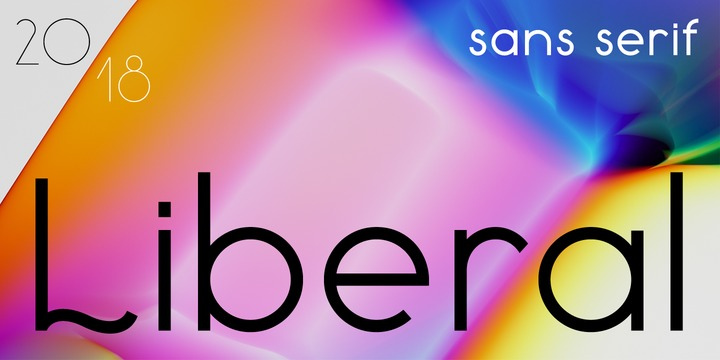
Liberal Font
Liberal Font is perfect for progressive political campaigns, social justice organizations, advocacy group communications, democratic institutions, open-minded educational platforms, and forward-thinking policy research centers. This enlightened typeface excels in civil rights materials, progressive media publications, social reform initiatives, and any application where inclusive values and progressive ideals create meaningful connections with socially conscious communities.
What makes Liberal Font so exciting is its remarkable ability to convey openness and progressive thinking through generously spaced, welcoming letterforms that embody principles of inclusion and social advancement. The font features open counters, democratic proportions, and forward-leaning character shapes that reflect the spirit of progress and social evolution. Its inclusive presence makes it perfect for organizations championing equality, justice, and positive social change.
Liberal Font comes in a progressive family including Light, Regular, Medium, Bold, and Reform weights. Each style features complete uppercase and lowercase character sets, inclusive symbols, progressive numerals, and democratic punctuation marks. The font family also includes diversity alternates, equality ligatures, and reform variations that allow designers to create authentic progressive communications with social consciousness and professional advocacy appeal.
This enlightening typeface transforms political communications into powerful expressions of democratic values and social progress. Liberal Font Free Download provides progressive organizations and advocacy groups with essential typography that champions inclusive ideals while serving contemporary social movement needs. Whether you're developing campaigns for social justice, creating materials for progressive causes, or designing communications for democratic institutions, this font delivers authentic progressive resonance with inclusive appeal.
The font's progressive character makes it particularly effective for advocacy organizations, progressive political groups, social justice initiatives, and inclusive educational institutions. Its open readability ensures that Liberal Font communicates clearly while maintaining its distinctive inclusive personality. The font's ability to inspire hope and social consciousness makes it an invaluable voice for any project seeking to advance progressive values and connect with audiences through the universal appeal of equality, justice, and the transformative power of inclusive democracy and social progress.